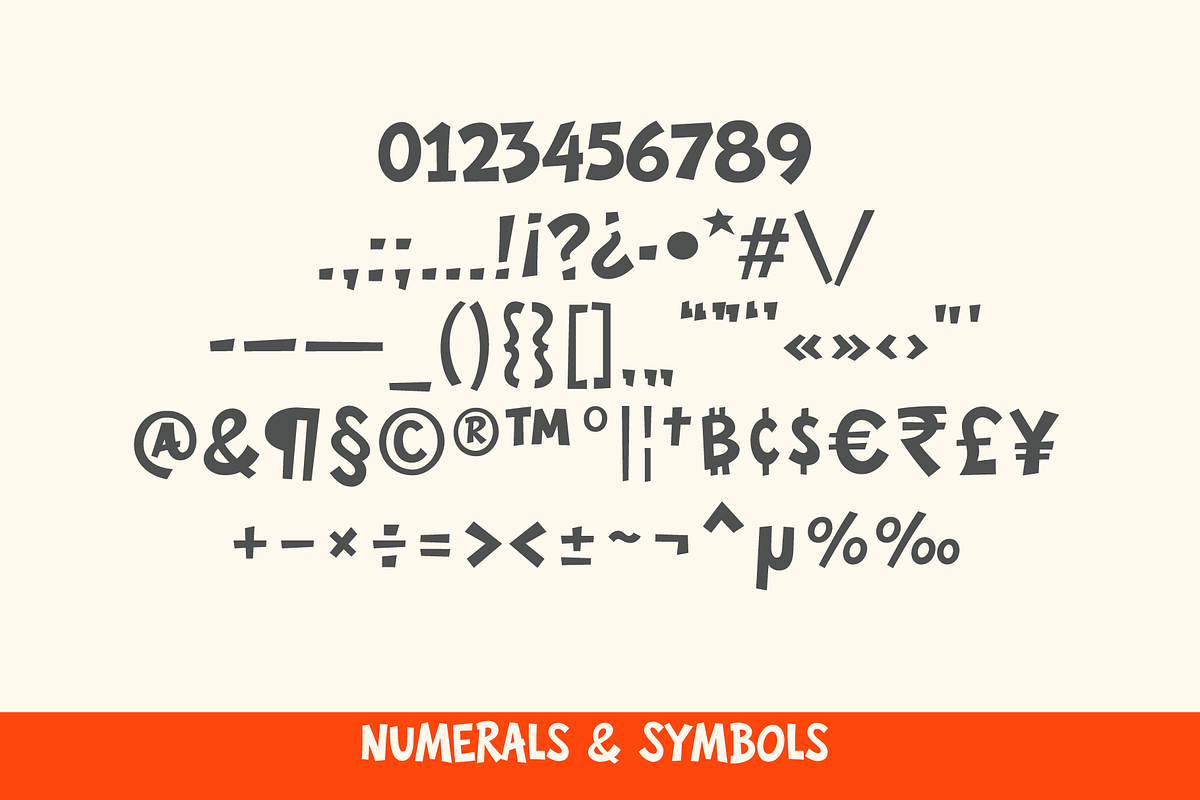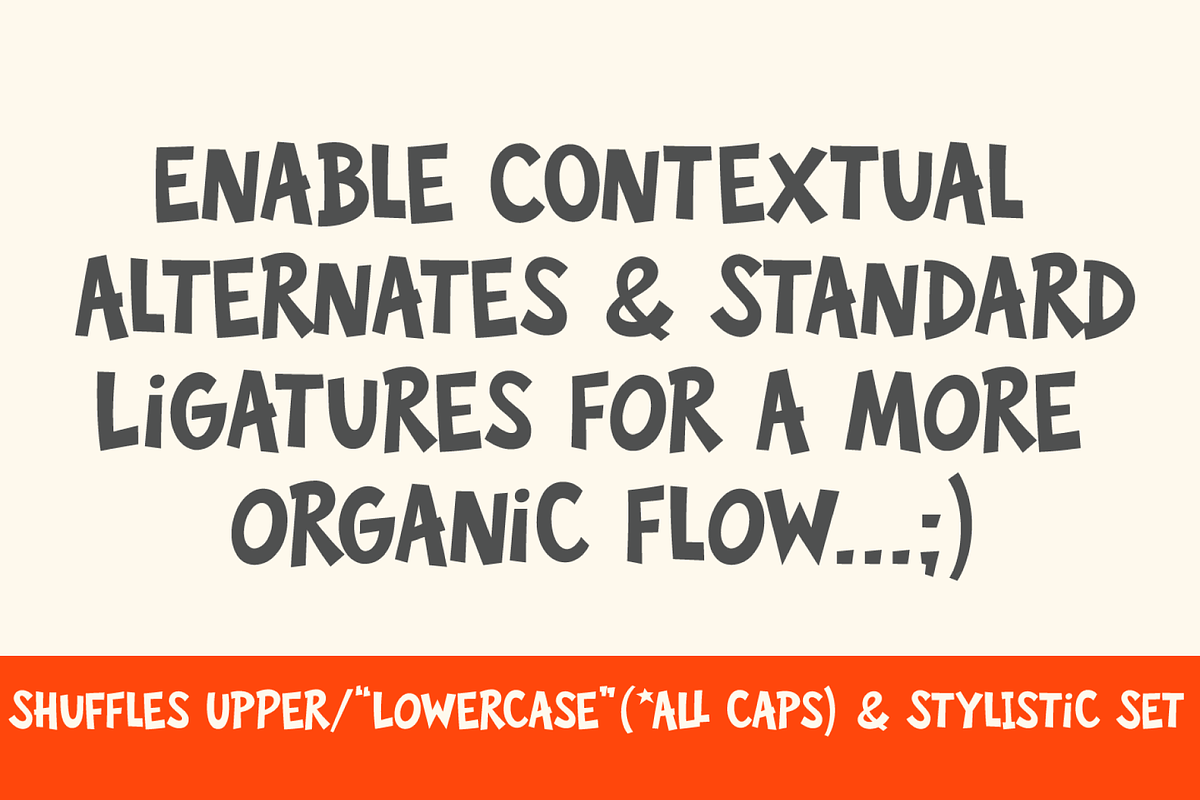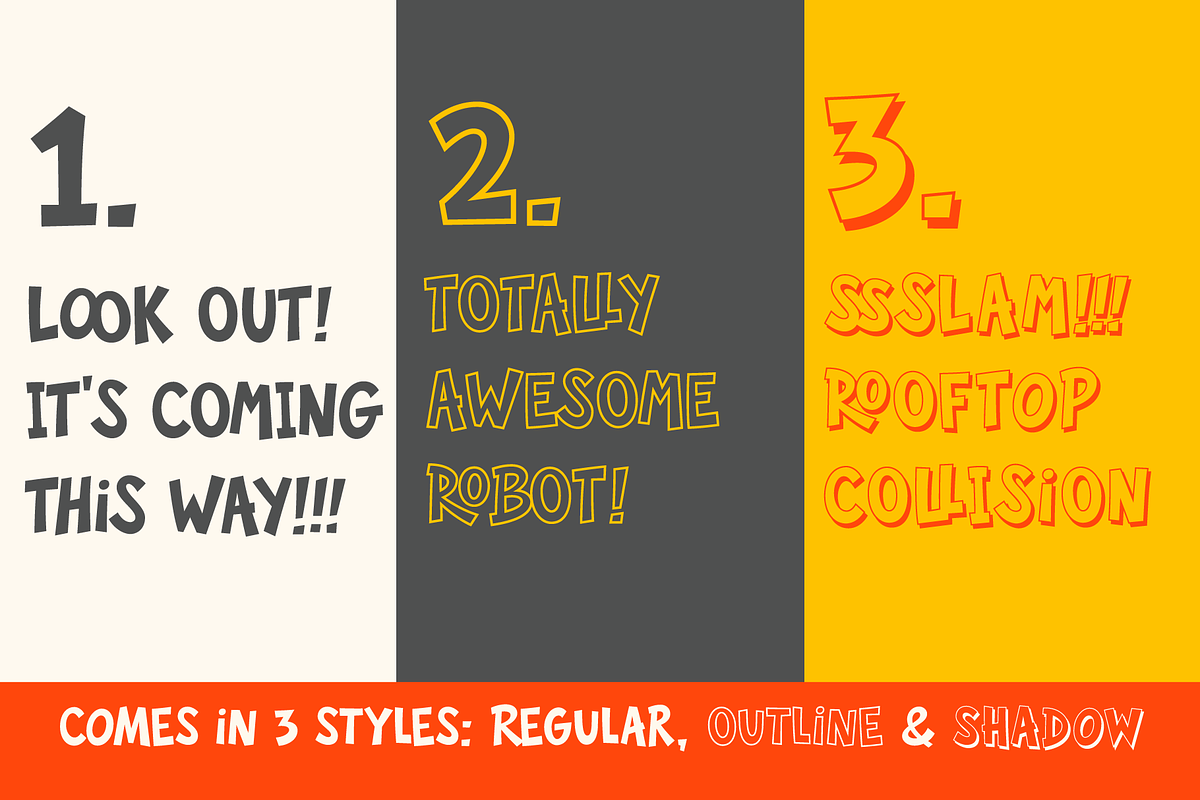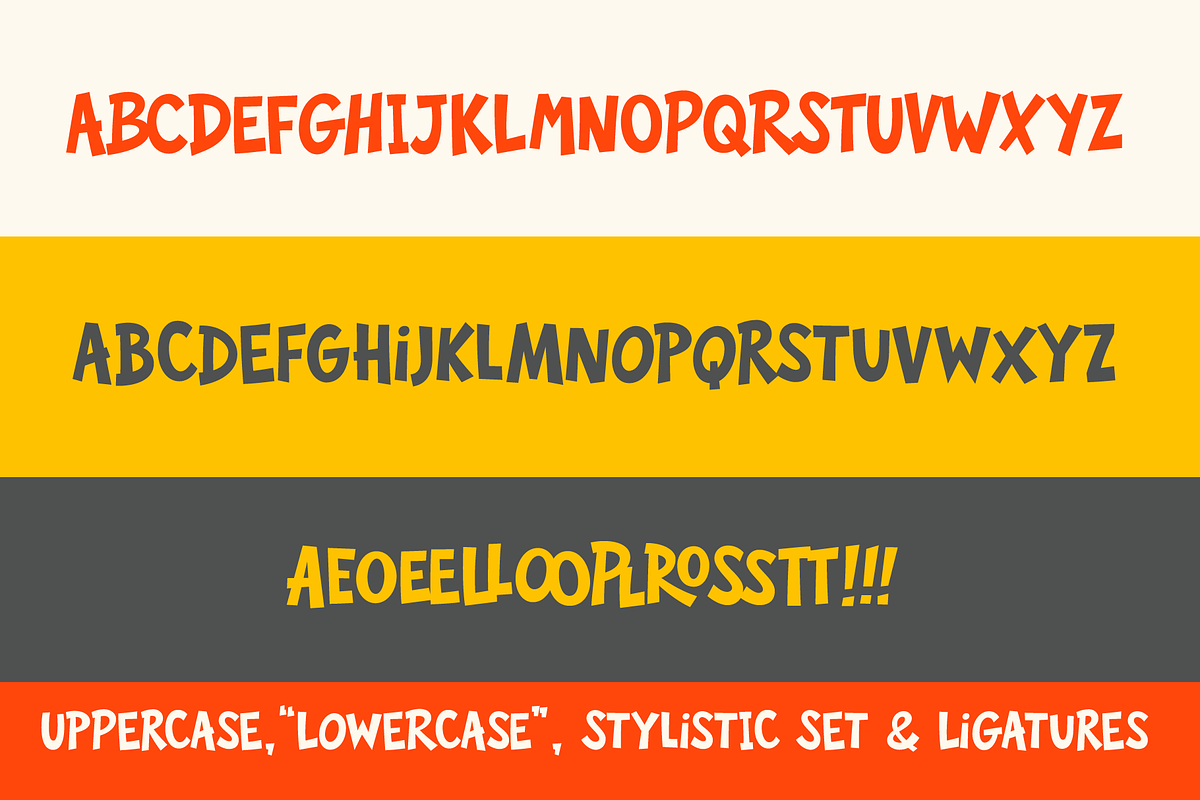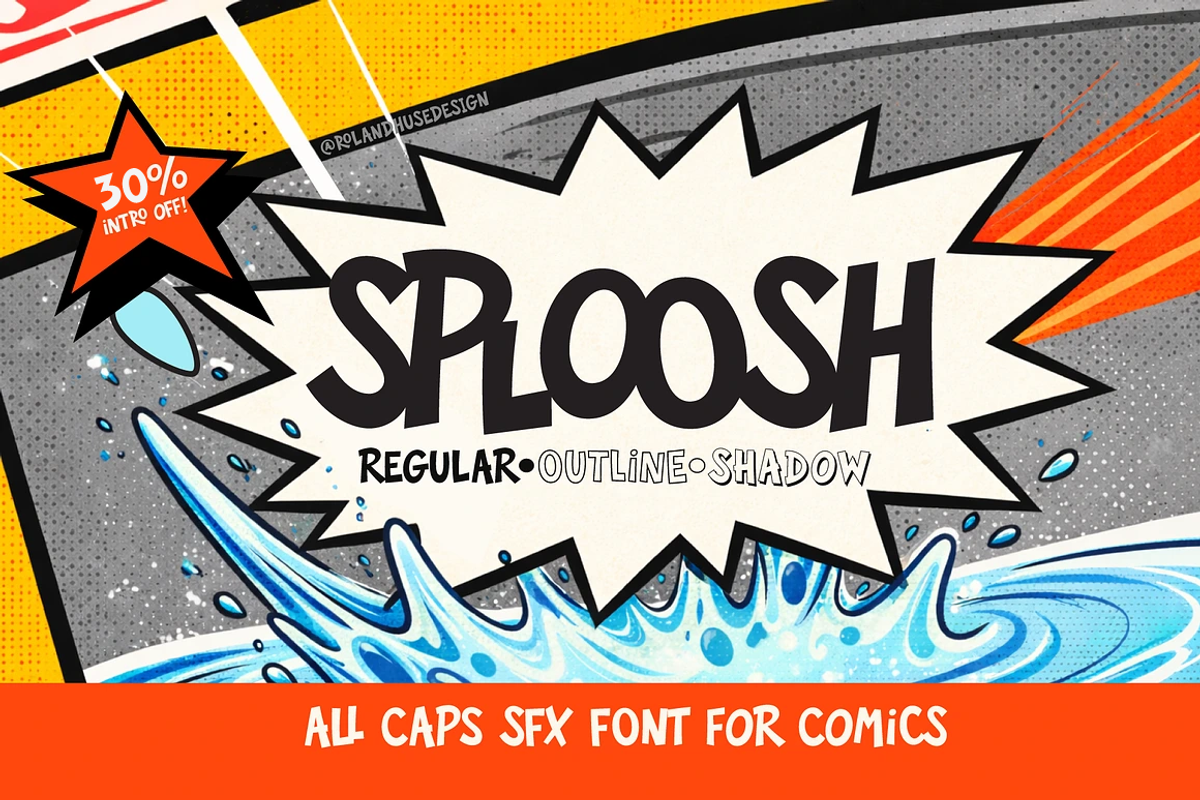
SPLOOSH - a Comic style SFX Font!
Sploosh is an all-caps comic lettering font built for bold impact at large sizes — sound effects, titles, and panel captions. The Family contains three versions/styles: Regular, Outline and Shadow. The calt OpenType feature cycles through uppercase, alternate uppercase ("lowercase"), and stylistic set variants automatically, keeping every line of text visually lively and authentically hand-drawn in feel. Tightly spaced and carefully kerned — letters sometimes overlap intentionally to match the energy and flow of natural comic lettering. To make the most out of this font use it for larger size, apply text effects, use colors, add to balloons or graphics, it is meant to be get along well and fit in Graphic Novels and Comics.